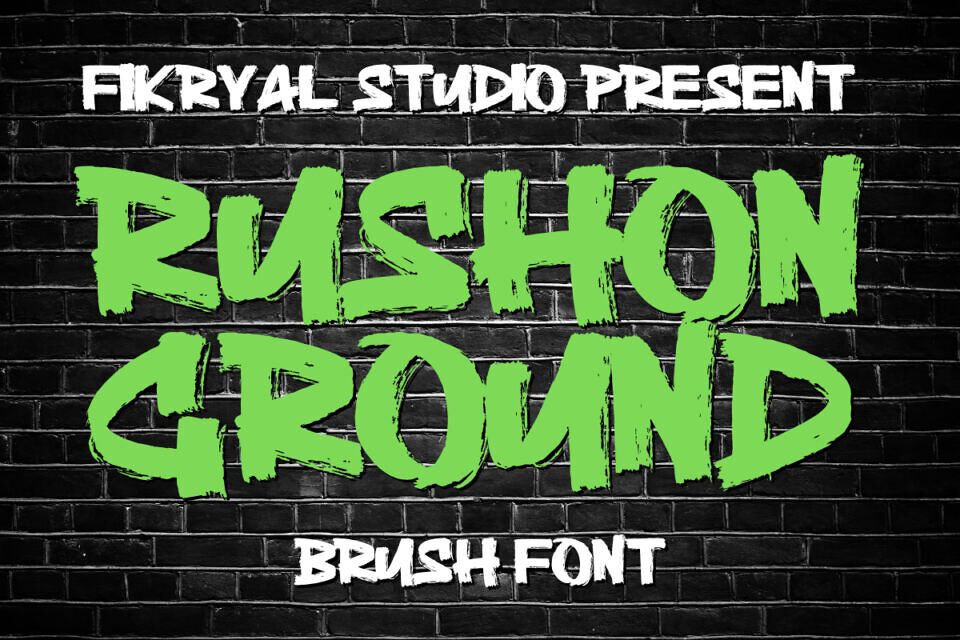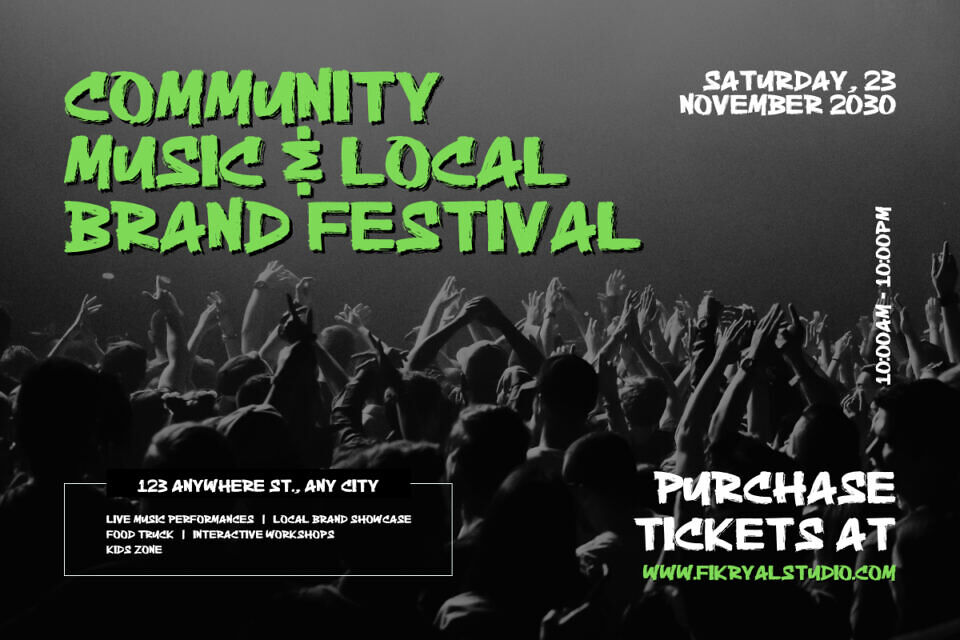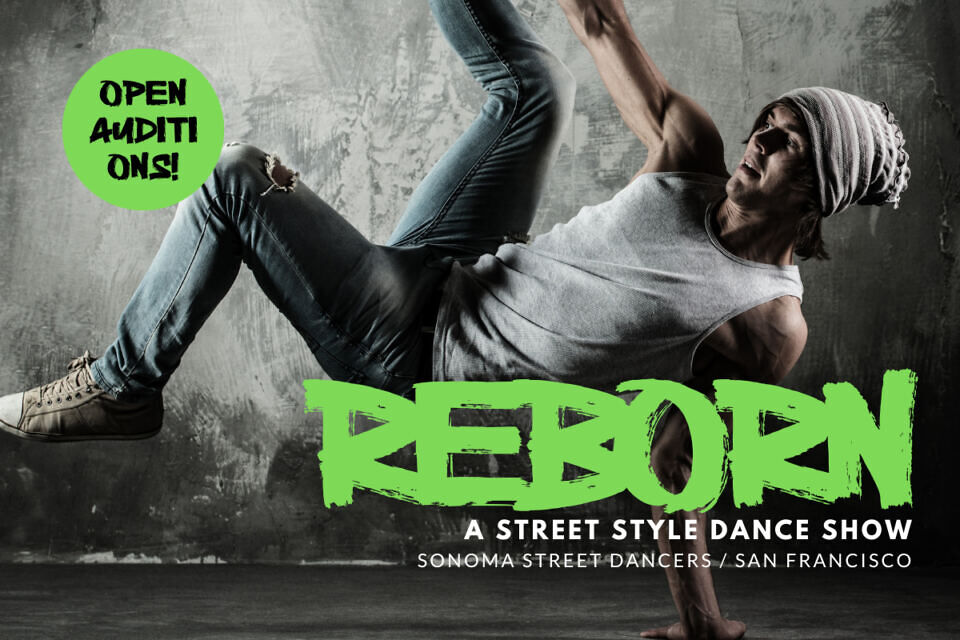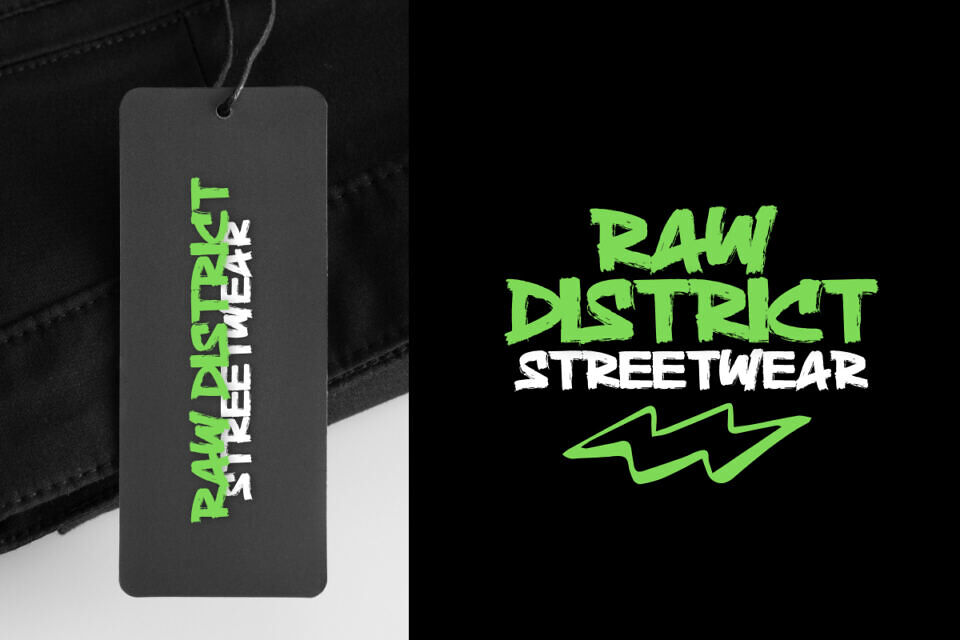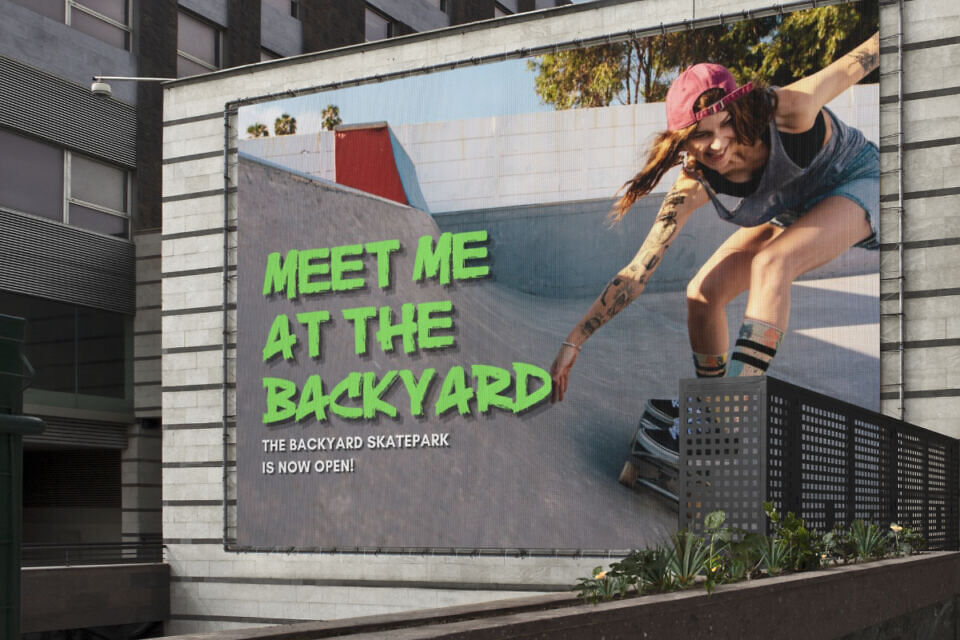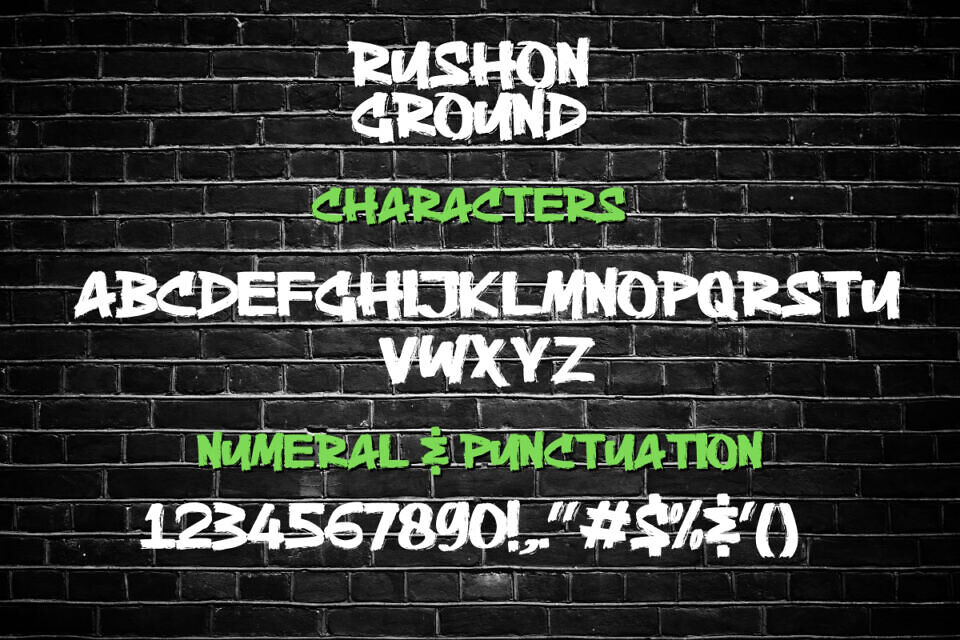
Rushon Ground is a brush display font designed with strong and bold characteristics, making a powerful visual impact on any design. Ideal for logos, posters, and headlines that require maximum attention. Get Rushon Ground to create bold, energetic designs that will captivate your audience.